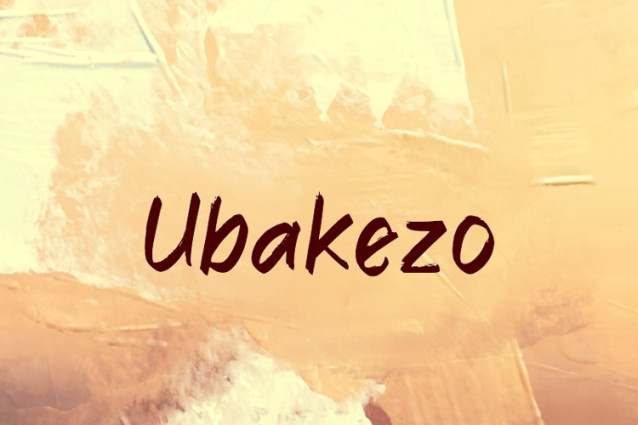
Ubakezo Font
Ubakezo Font, inspired by brush lettering-style typography. This font is perfect for a design that makes it more attractive and playful. It was made with a very good level of aesthetics, making this font suitable for a book cover, poster, packaging, merchandise, logotype, and much more.